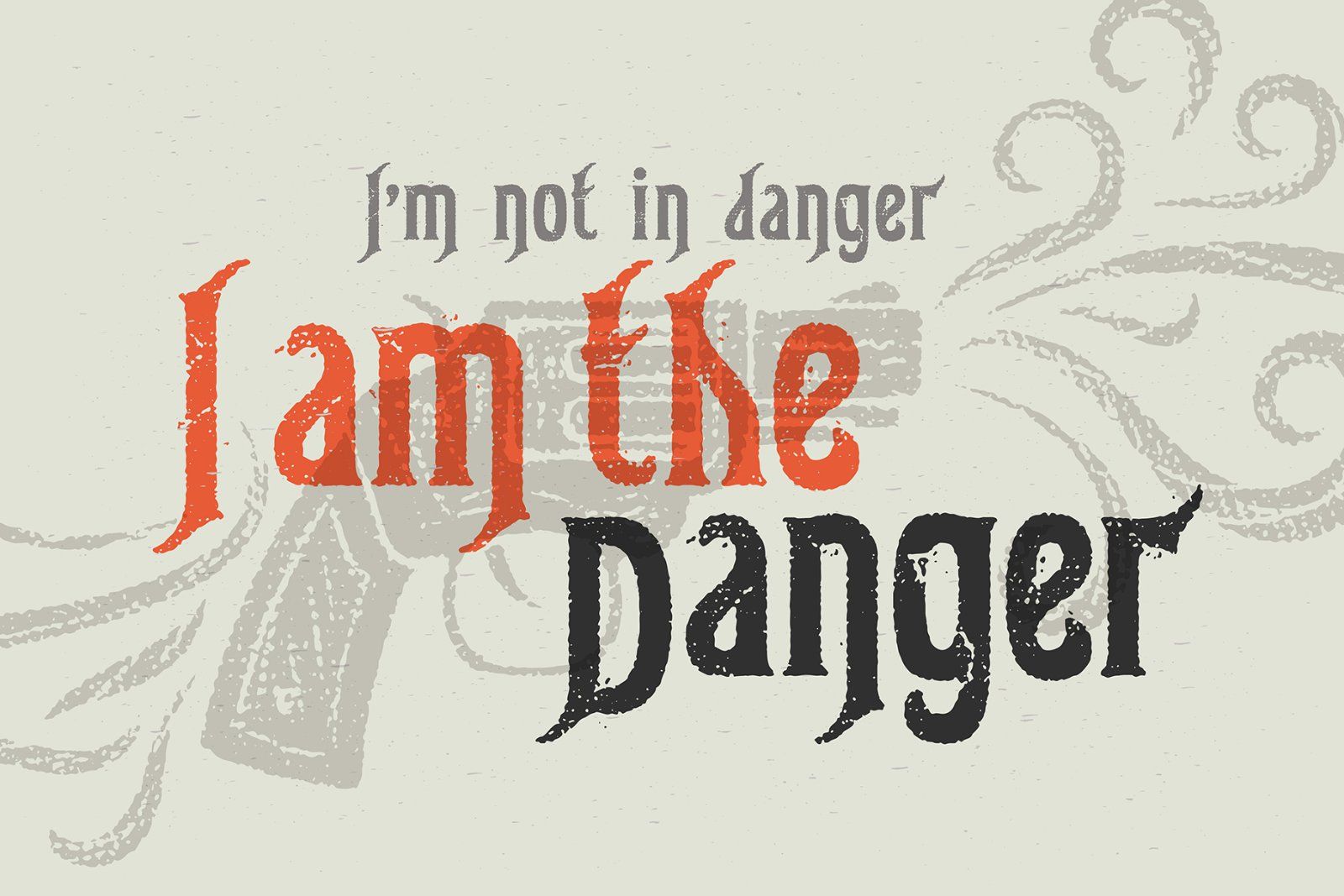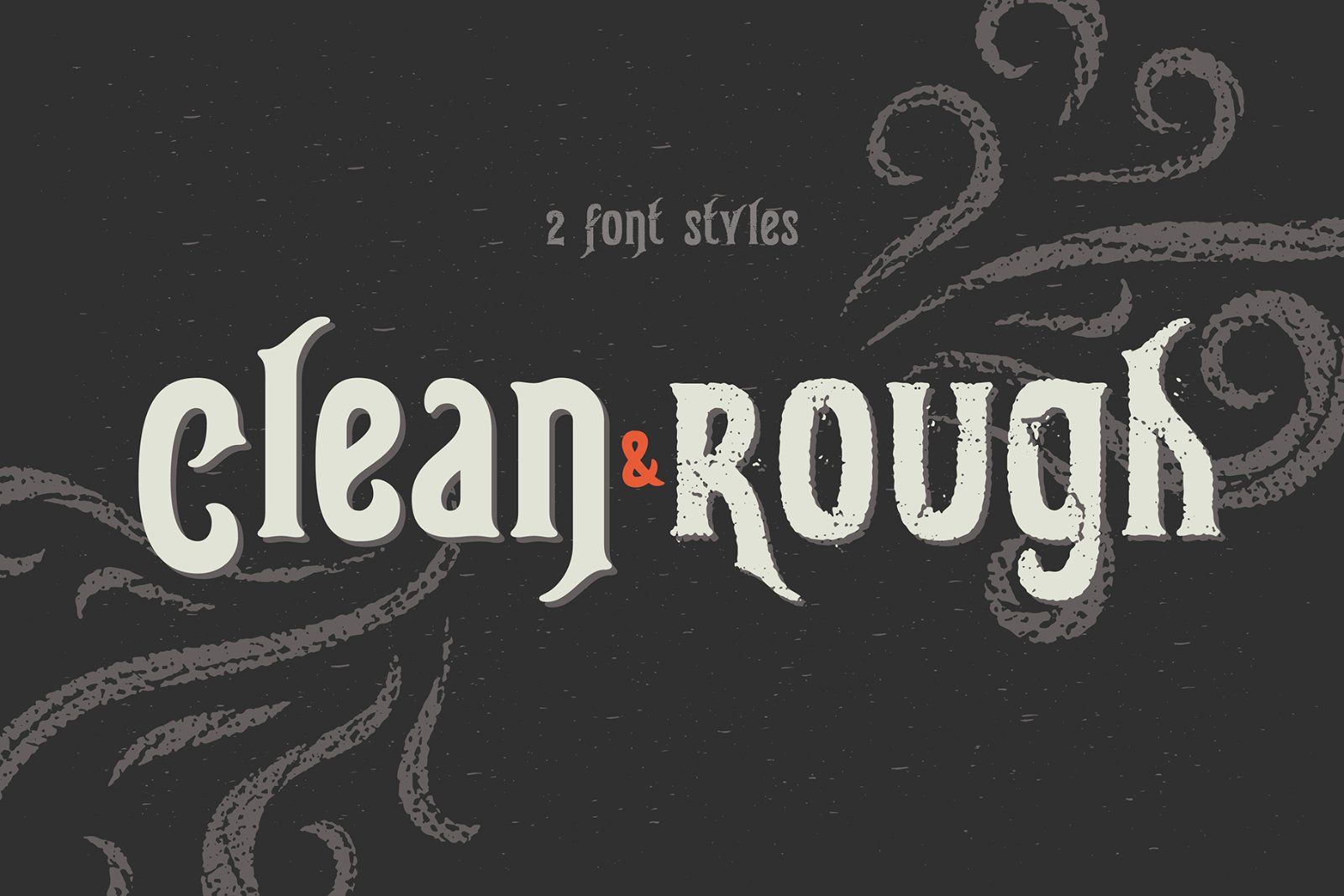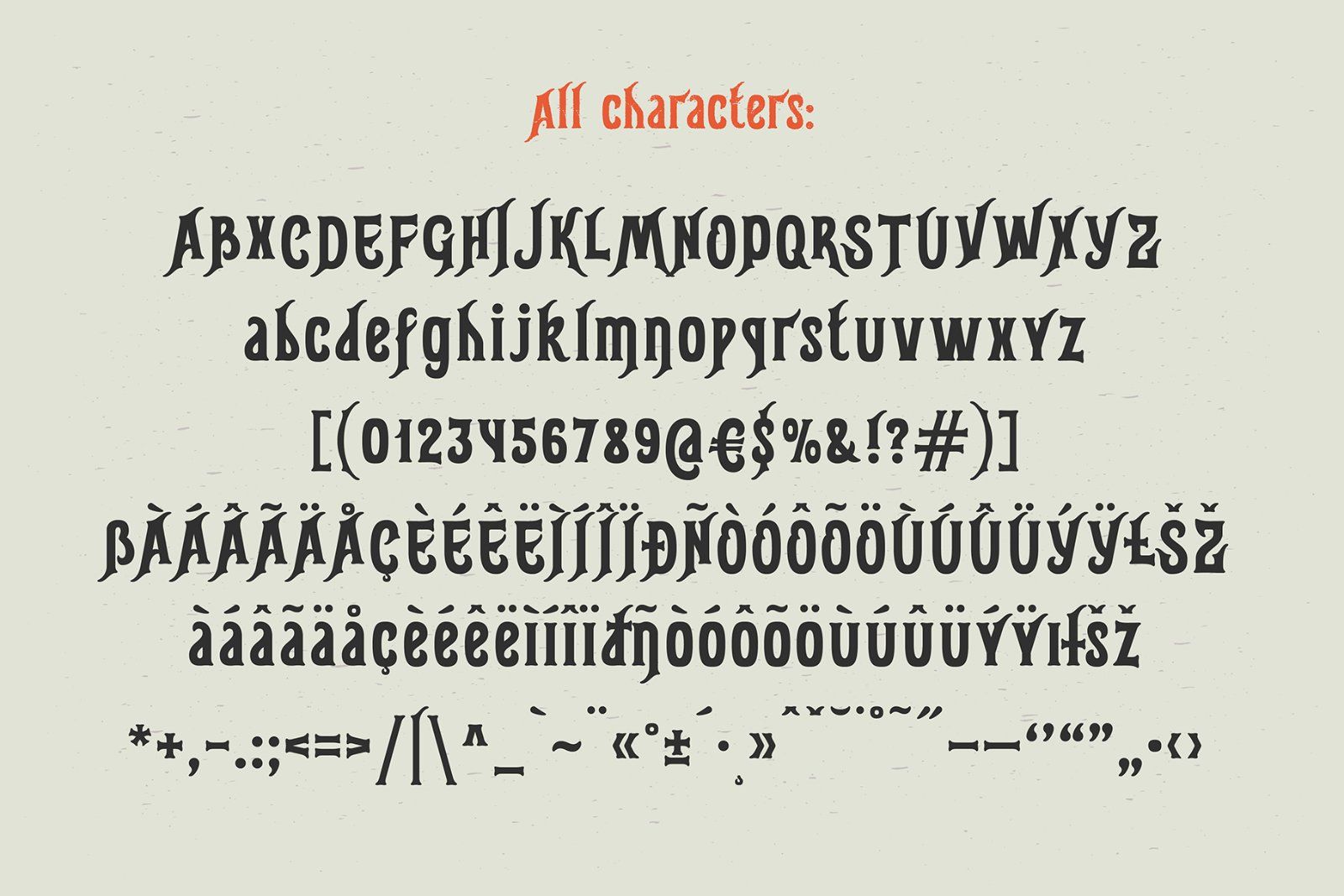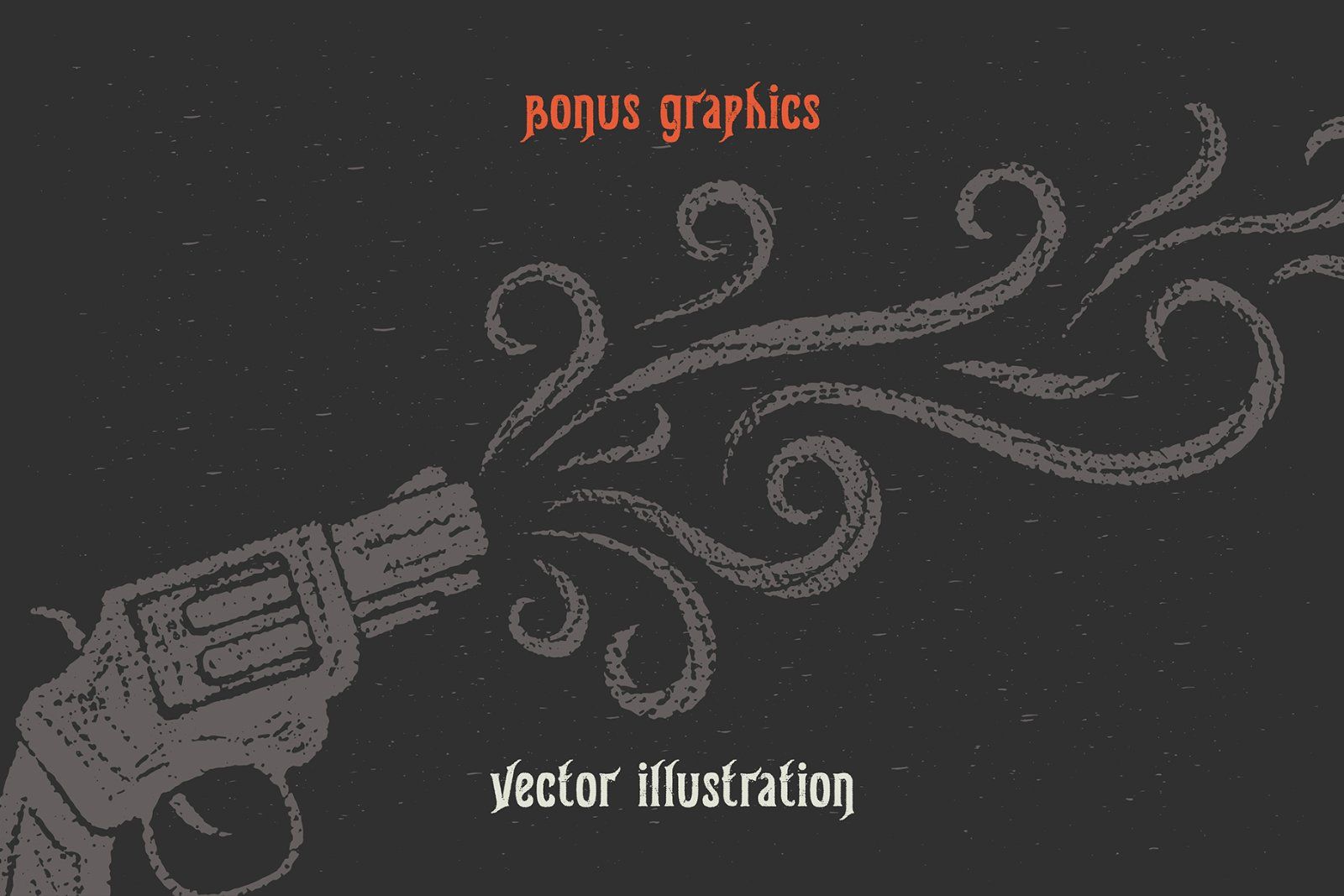
Hello! Introducing a vintage typeface named "Gunshot". It has two style variations with clean and rough characters. Also a vector illustration is included as a bonus.